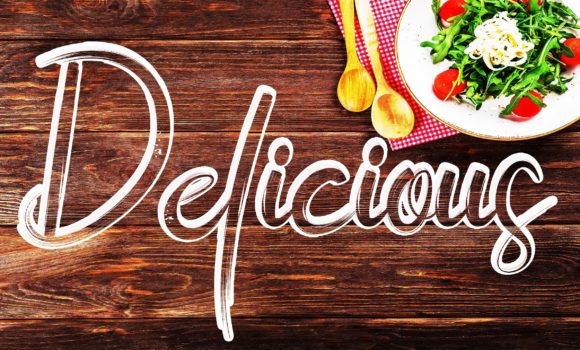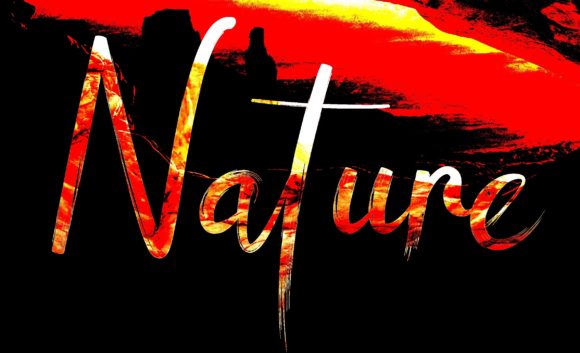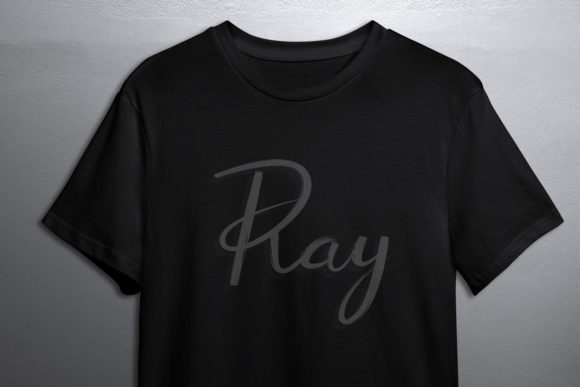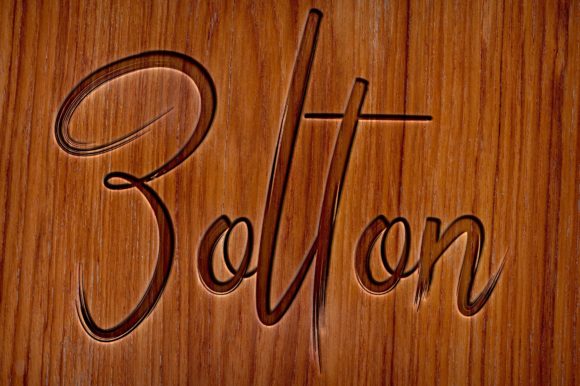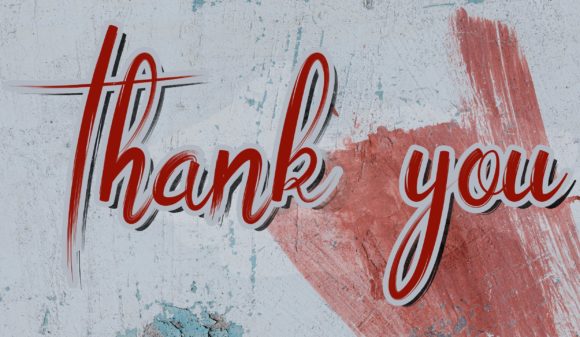
My Love Font
About My Love Font
My Love feels equally charming and elegant. It is PUA encoded which means you can access all of the glyphs and swashes with ease!